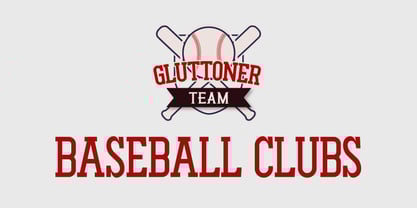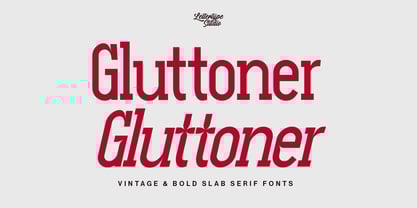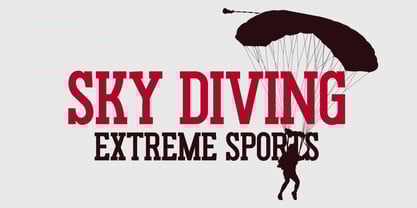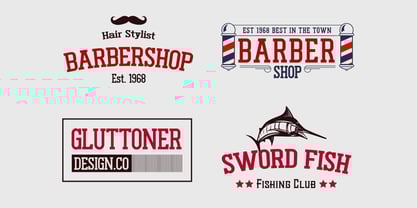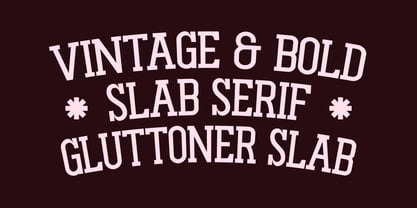
Gluttoner
Die Schriftfamilie Gluttoner wurde von Diki Pradipta Tri Atmojo entworfen und von Lettertype Studio veröffentlicht. Gluttoner enthält 12 Stile und Familienpaketoptionen.
Gluttoner is a vintage & bold slab serif font inspired by urban culture with strong characters. Welcome to the new bold world slab serif characters, that fonts will help for any of your projects.
This font will be perfect for your logo design, branding, clothing, sports graphics, posters, editorial titles, headlines, etc.